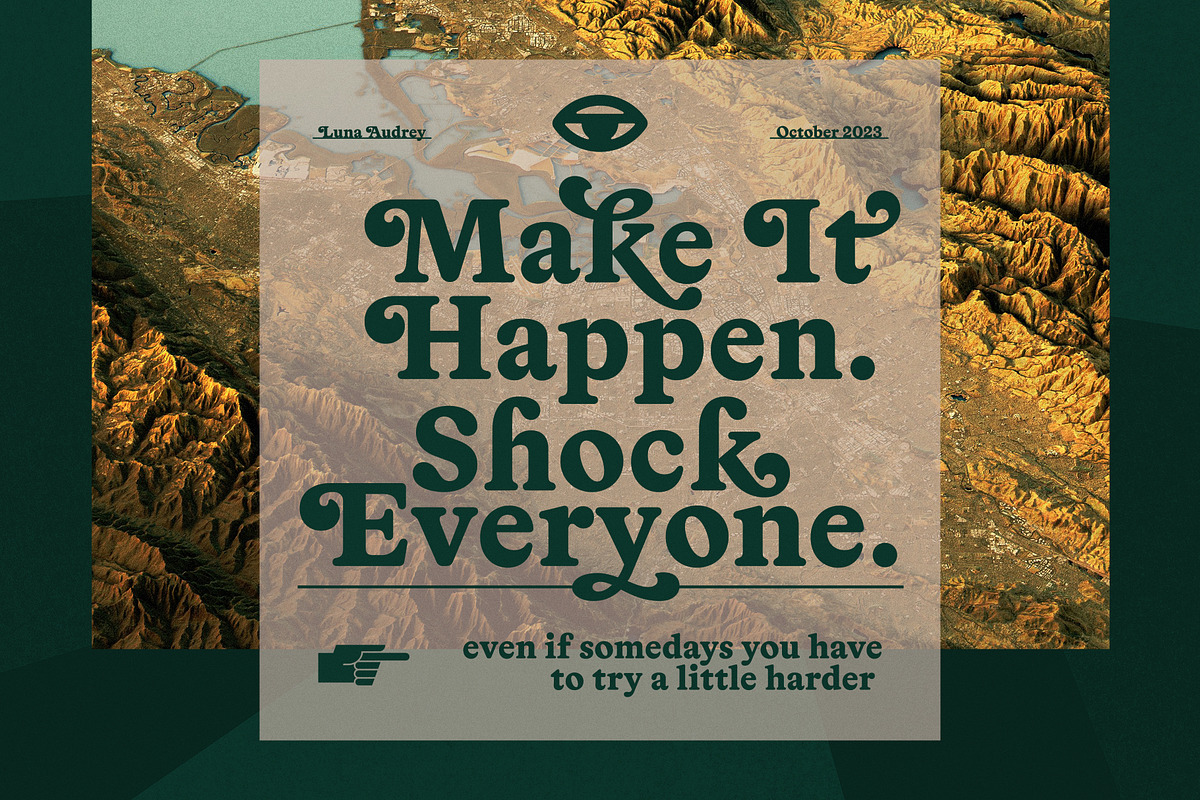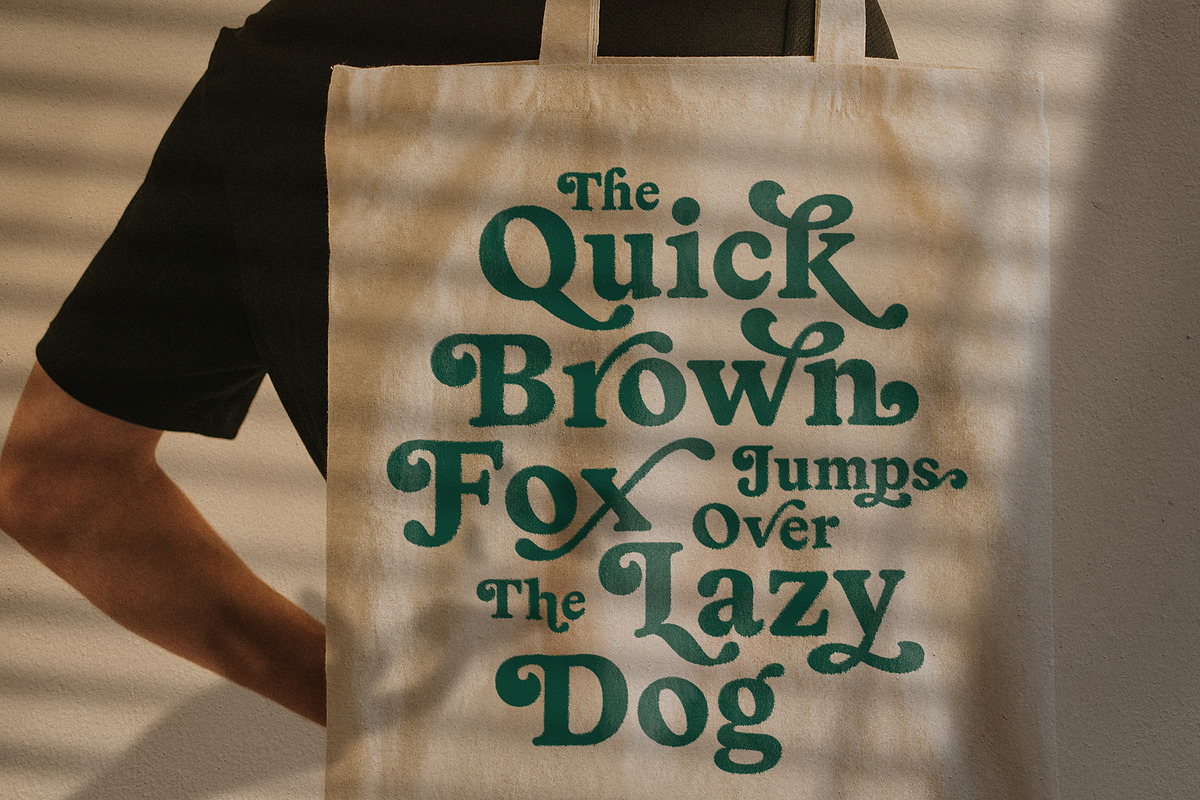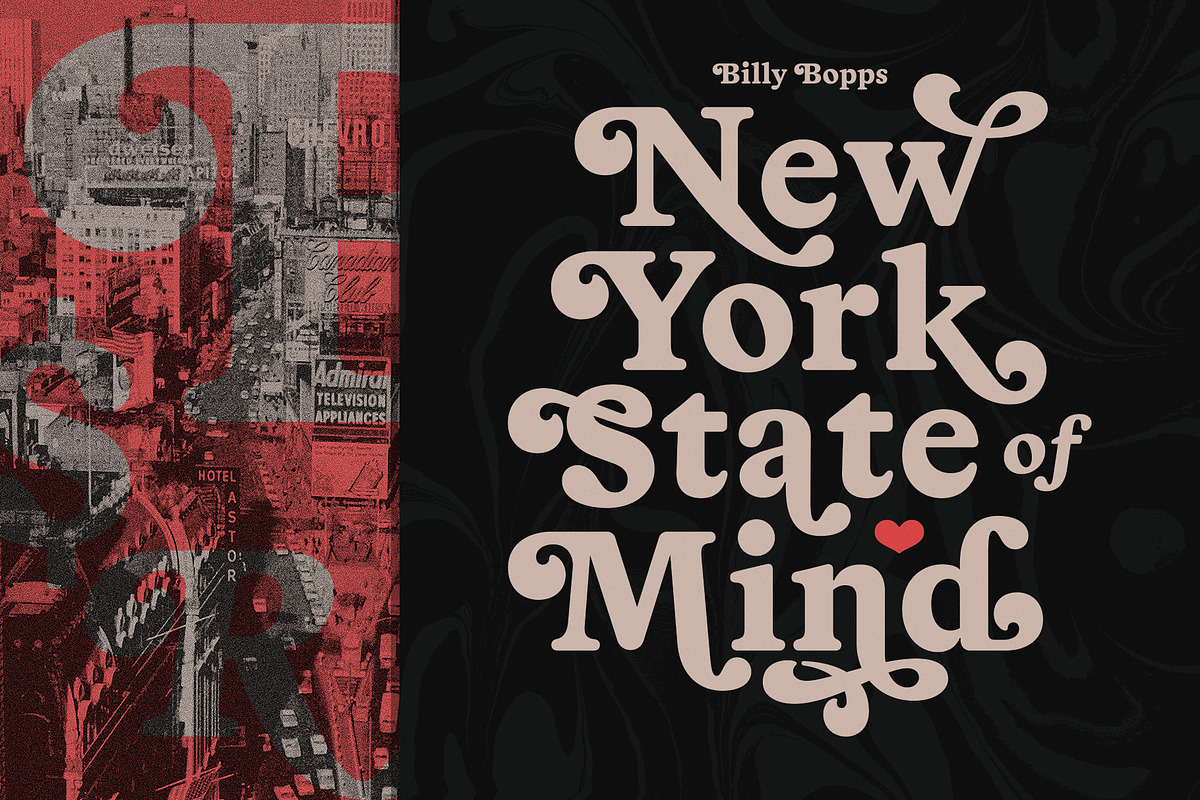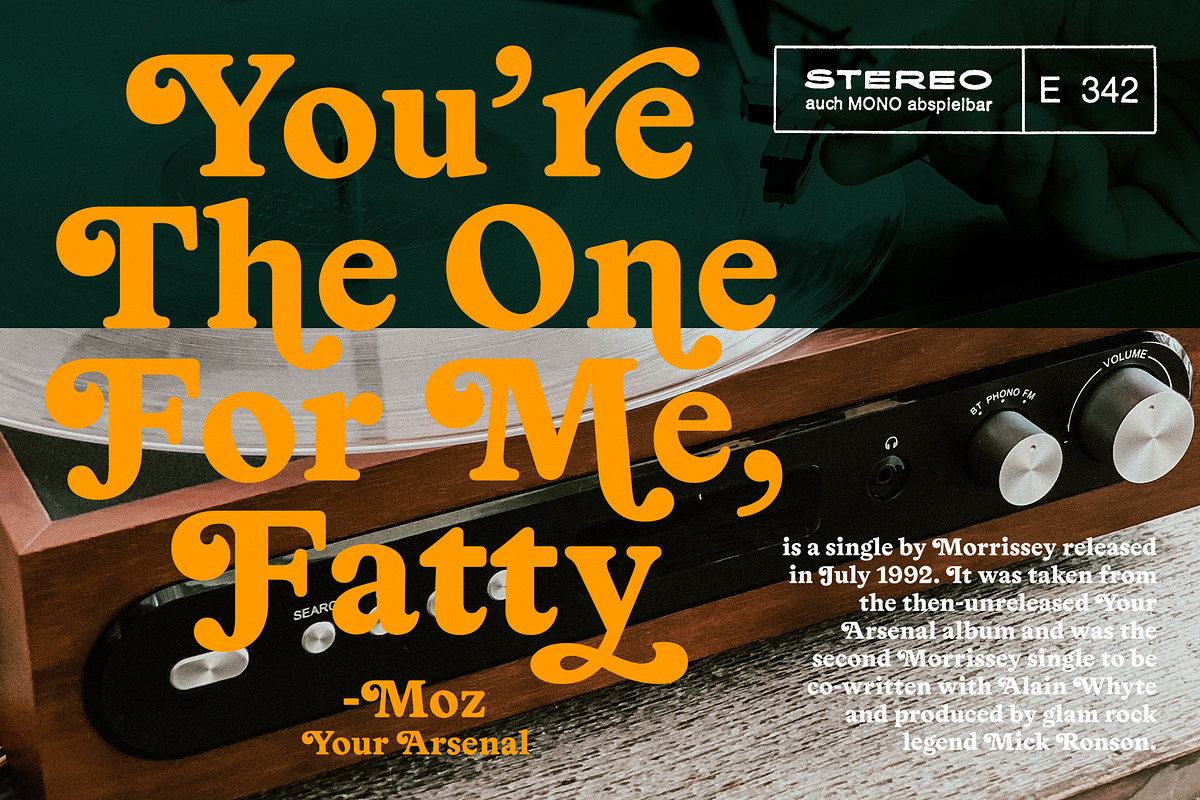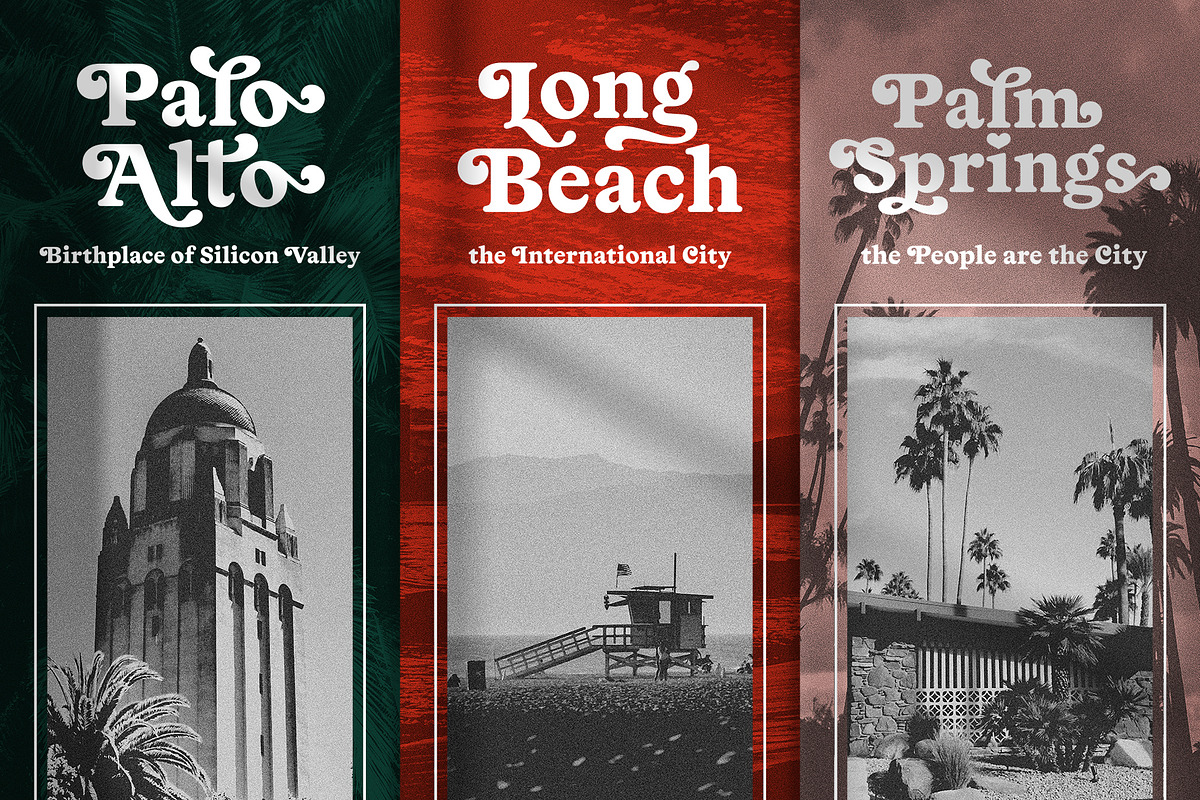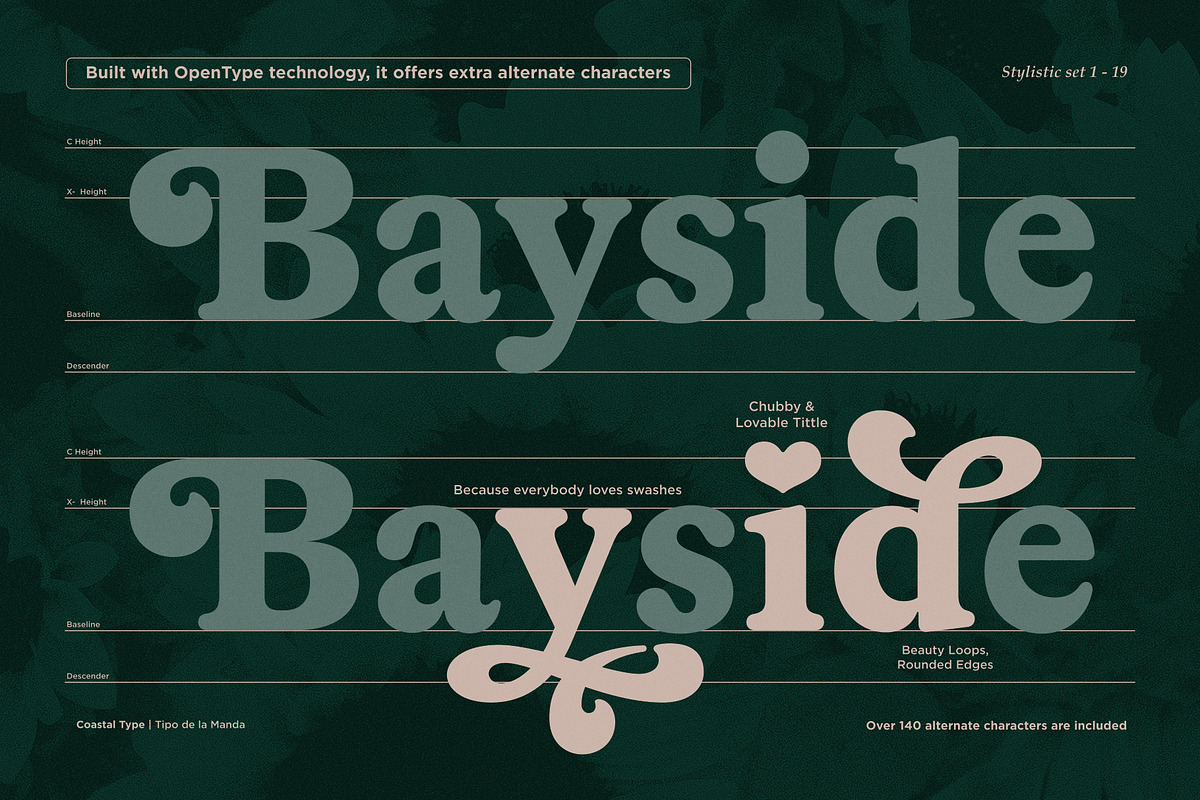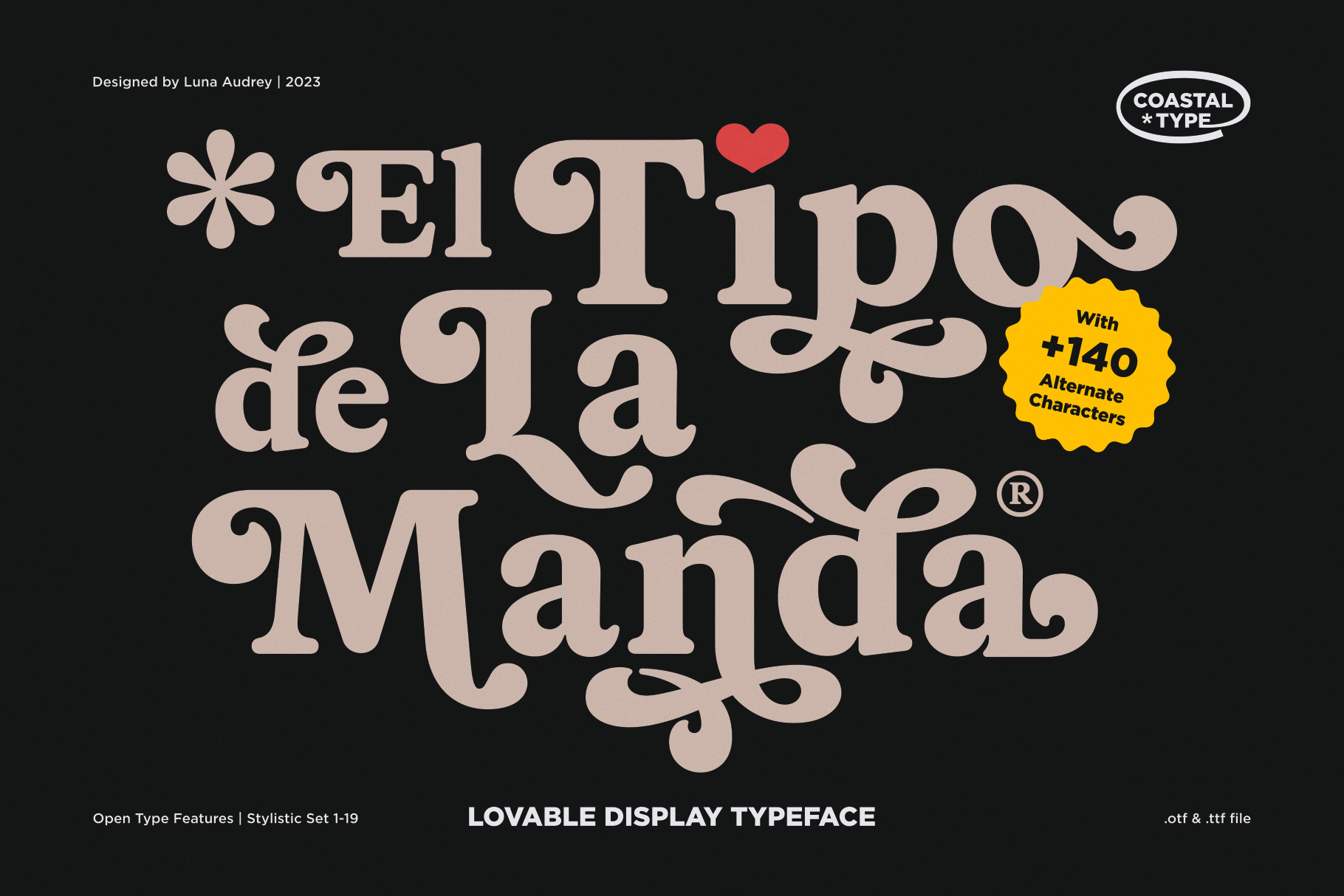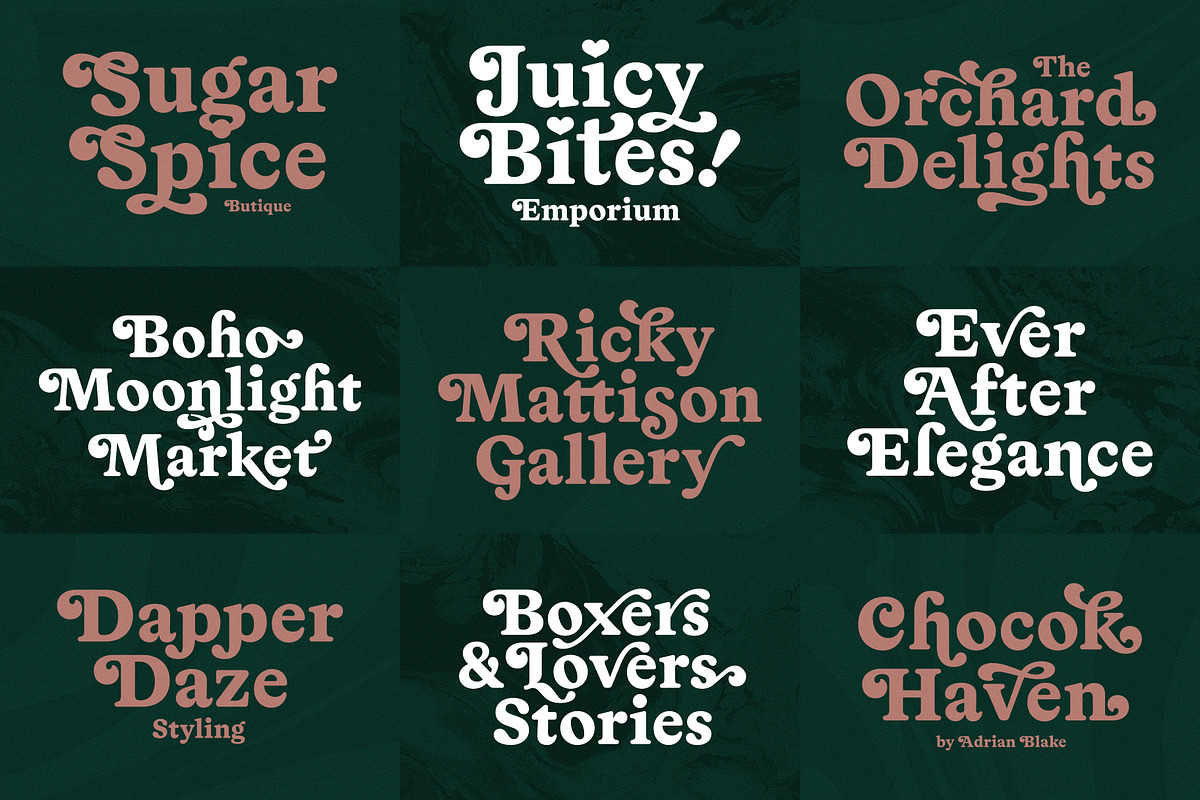
Tipo De La Manda | Retro Font
Introducing "Tipo de la Manda," a bold typeface with rounded edges, crafted with inspiration from the timeless styles of Bookman Swash and the distinctive letterforms of Herb Lubalin. Accessible through OpenType features, this font boasts over 140 alternate characters, allowing for a playful mix of both modern and retro elements. Evoking the vibrant spirit of the 1970s, Tipo de la Manda seamlessly blends a sense of nostalgia with contemporary design, making it perfect for a wide range of applications. Its versatile alternate characters inject a playful charm, bringing a delightful liveliness to any project. Discover a font that encapsulates the essence of the past while embracing the innovation of the present with Tipo de la Manda.
- Stylistic Alternates & Ligatures